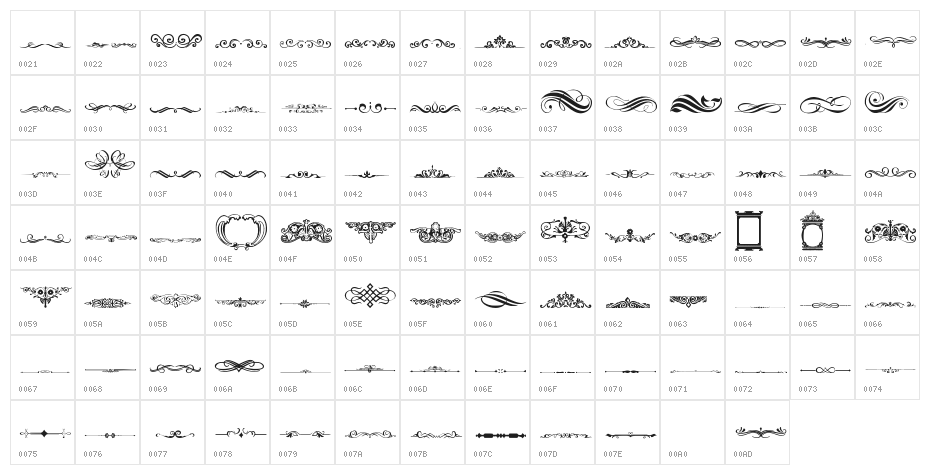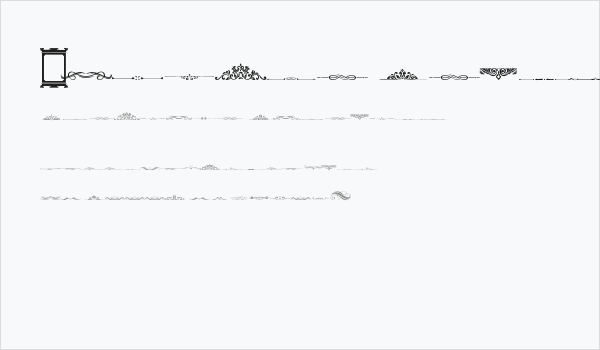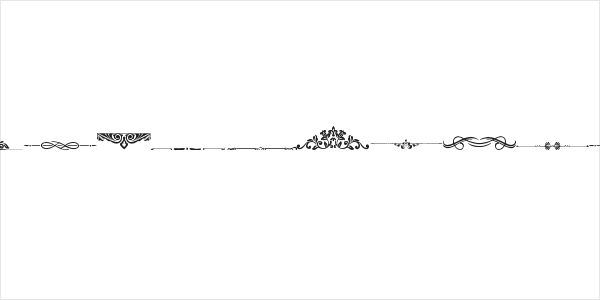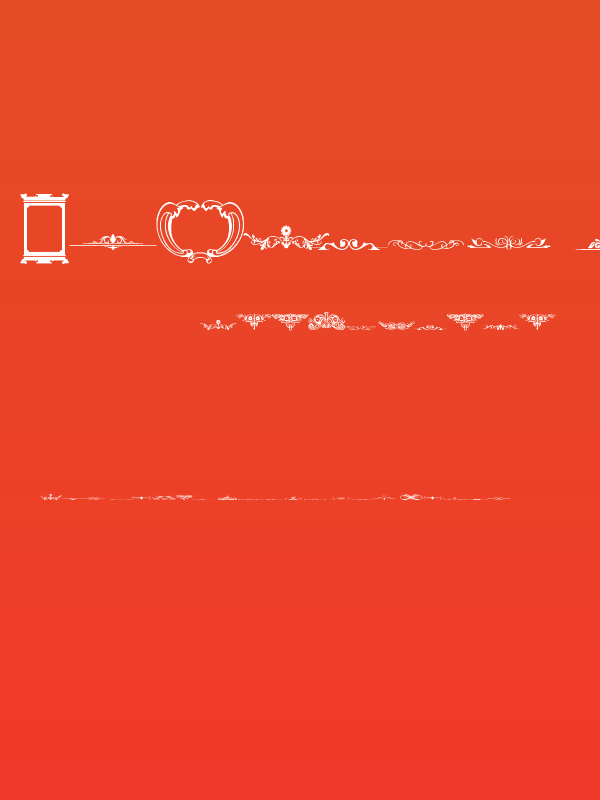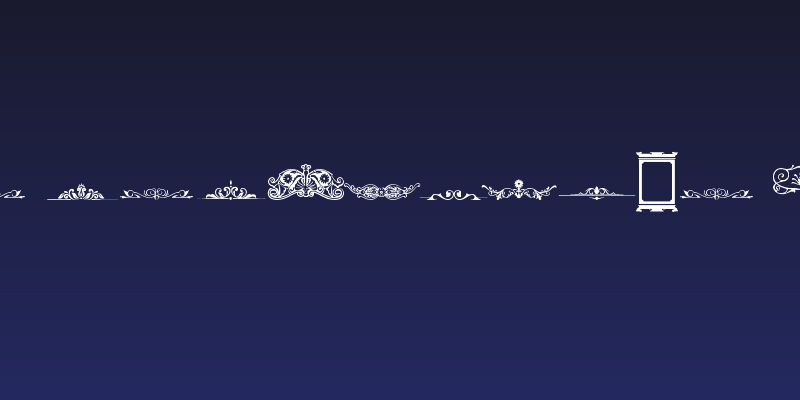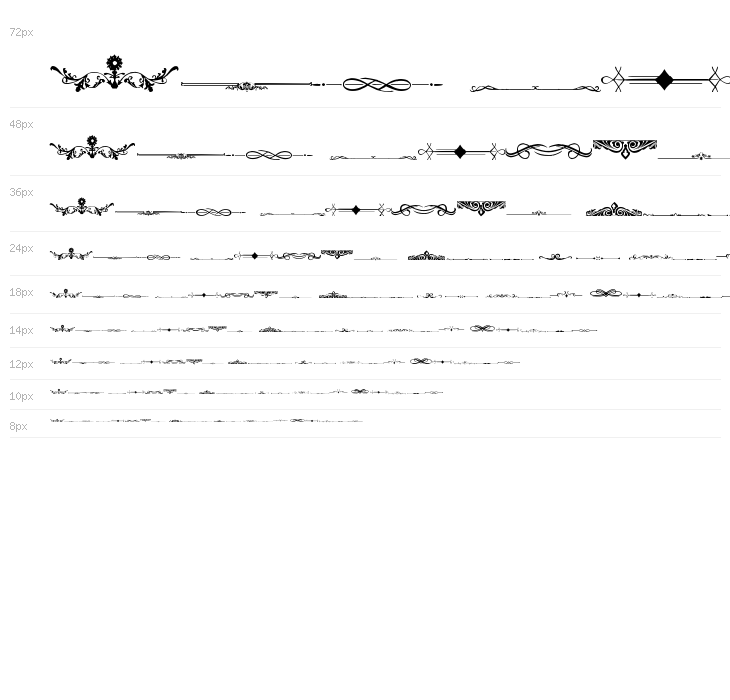
Vintage Decorative signs 2 Font
Vintage Decorative signs 2 Description
A collection of highly decorative vintage ornamental elements and borders, featuring intricate flourishes, frames, and embellishments with a hand-drawn, elegant style. The designs are ornate and varied, suitable for adding a classic or antique touch to visual projects.
| Overall Style | Vintage, Decorative, Ornamental |
| Use Case | Borders, Frames, Decorative accents |
| Proposed Projects | Wedding invitations, certificates, vintage posters, book covers, restaurant menus, event signage, decorative labels. |